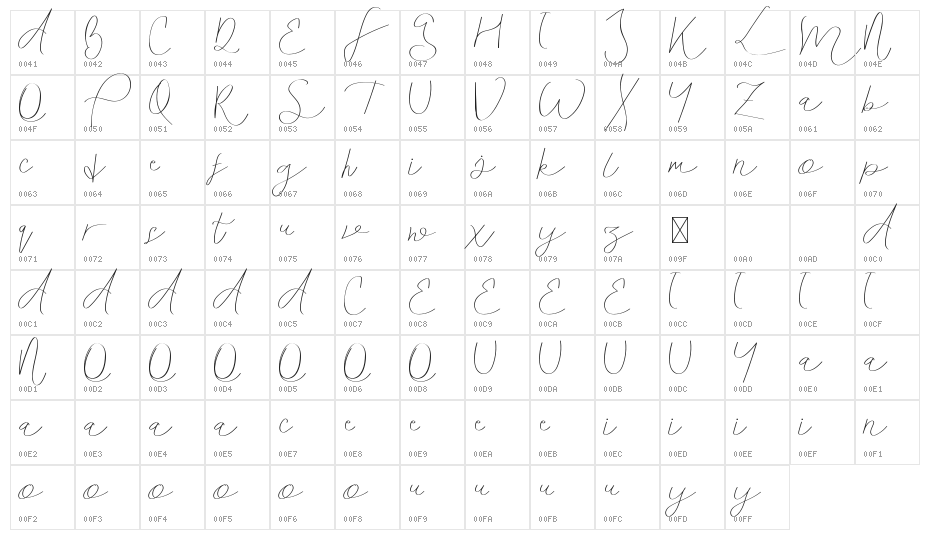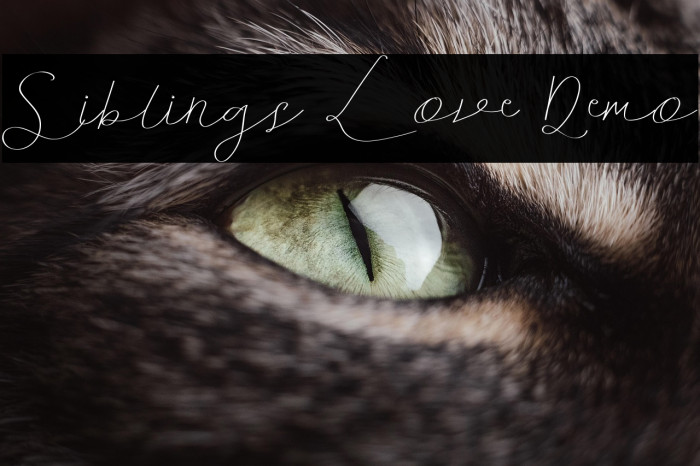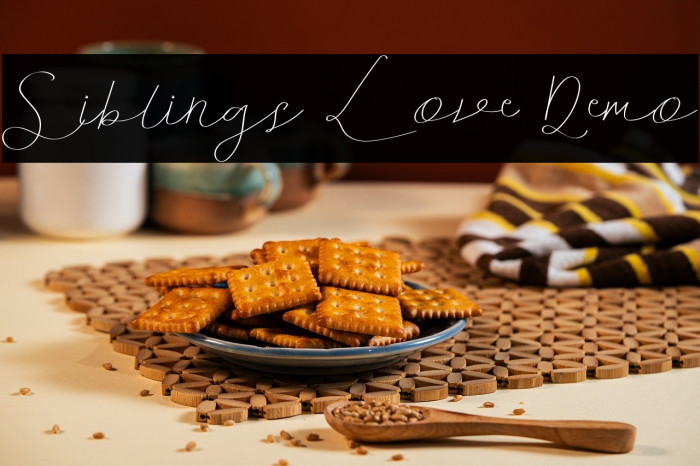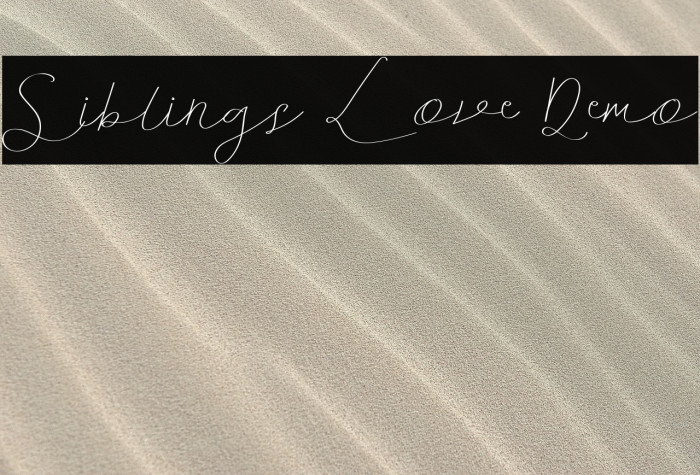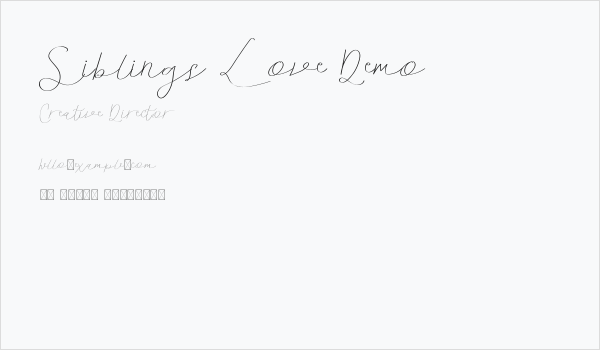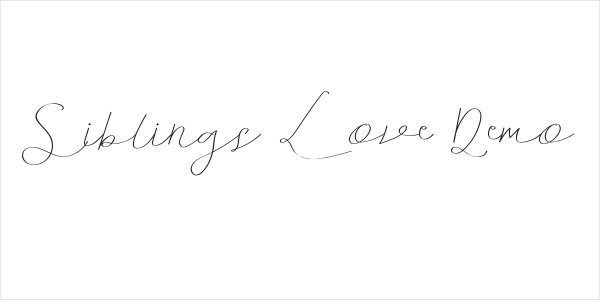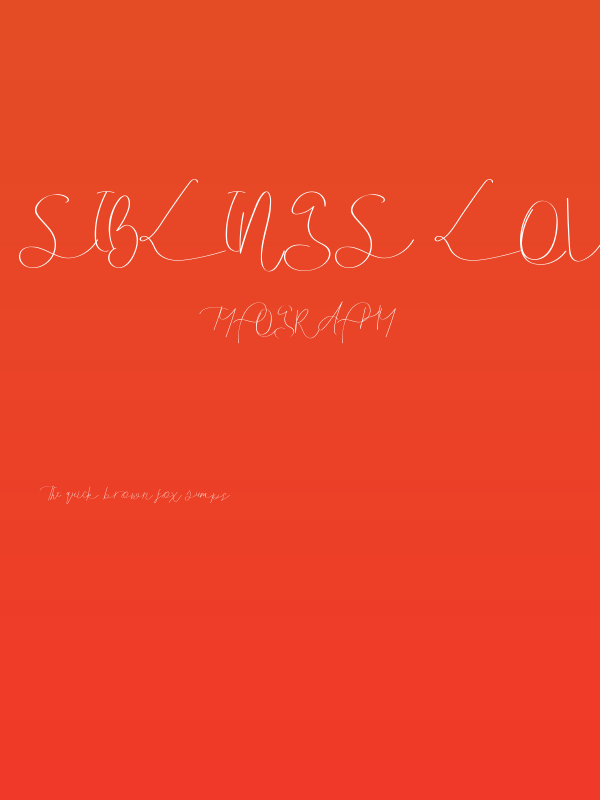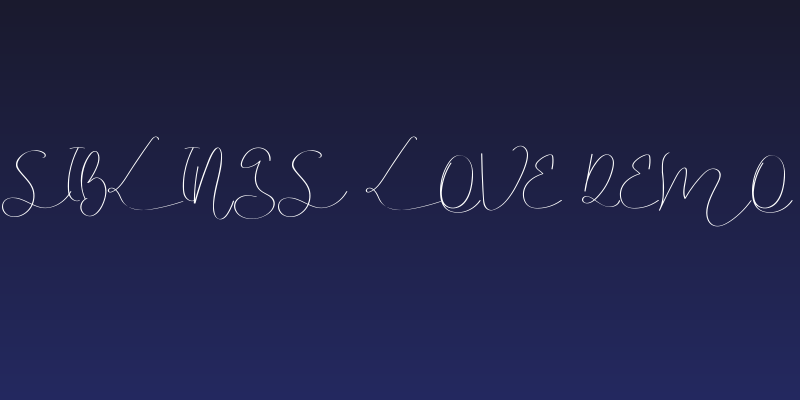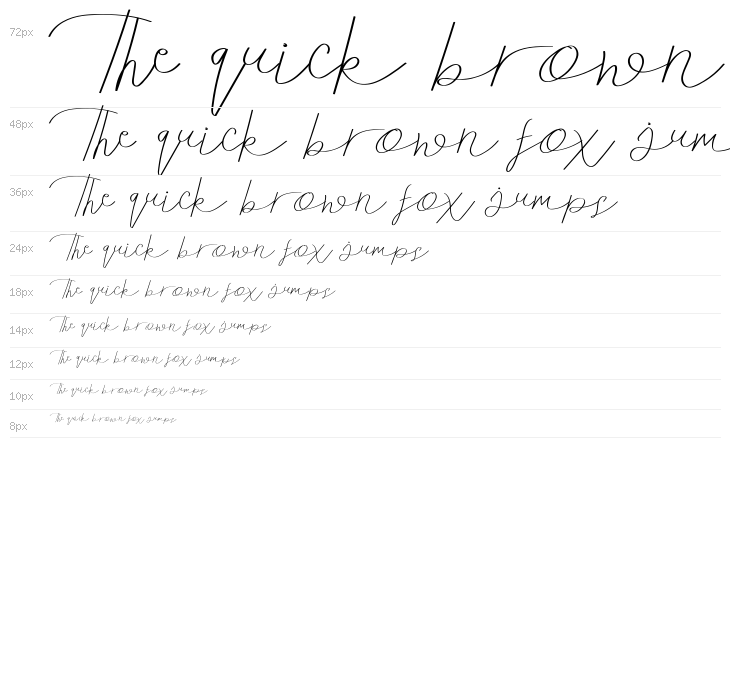
Siblings Love Demo Font
Siblings Love Demo Description
This font exhibits a delicate and flowing script style, characterized by its elegant and continuous strokes. The letters are interconnected, creating a sense of fluidity and movement. The uppercase letters are slightly more ornate, with extended loops and swirls, while the lowercase letters maintain a consistent, graceful form. The overall appearance is airy and light, with a hand-drawn quality that adds a personal touch. The thin lines and gentle curves make it suitable for conveying a sense of elegance and sophistication. This font is ideal for projects that require a touch of romance or a personal, handwritten feel.
| Overall Style | Elegant, Handwritten |
| Proposed Projects | Wedding invitations, personal stationery, romantic quotes, branding for luxury products, and greeting cards. |